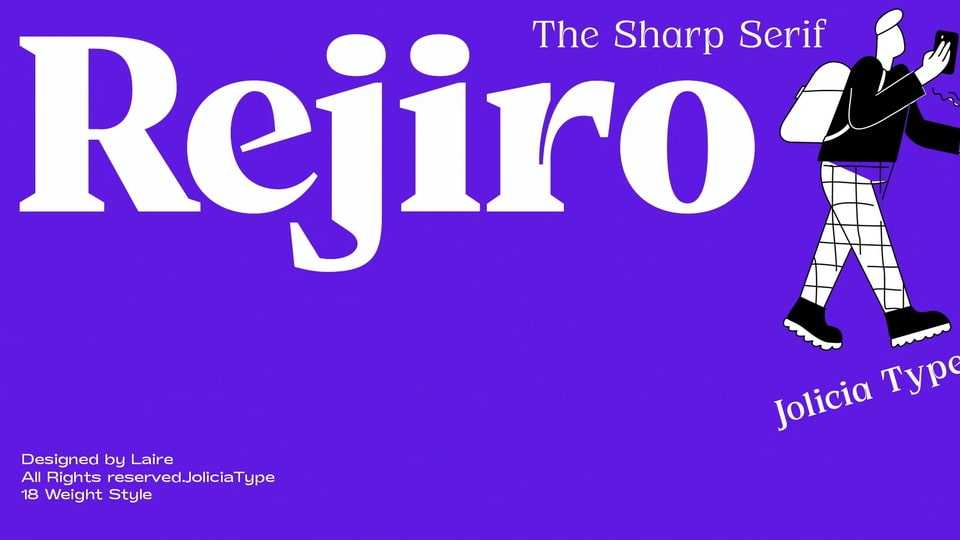
Download JT Rejiro font, a sharp and pointed serif typeface with a strong style and a special impression. The font is created to give a unified strong and eye-catching look.